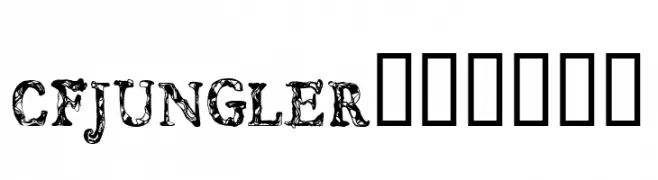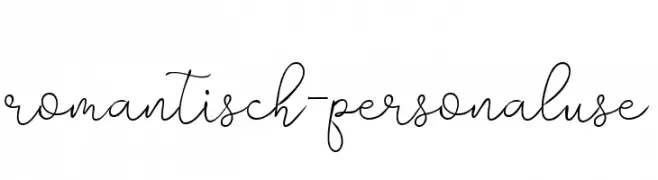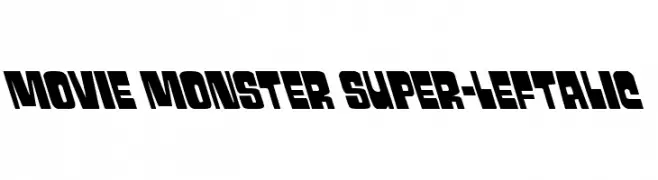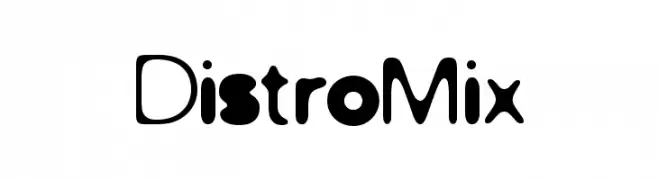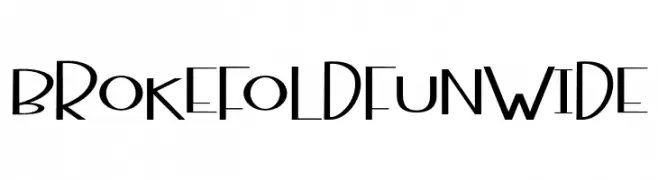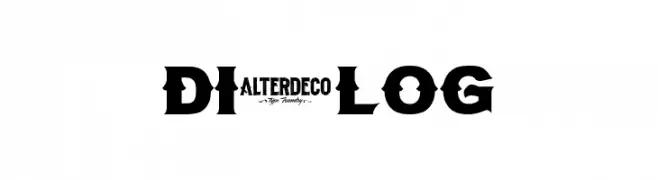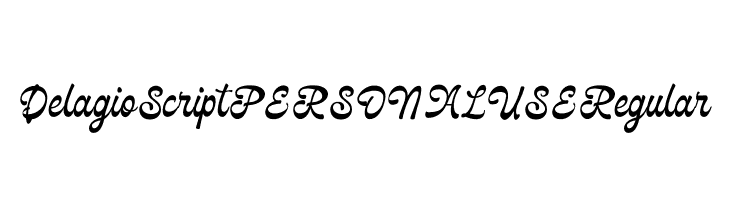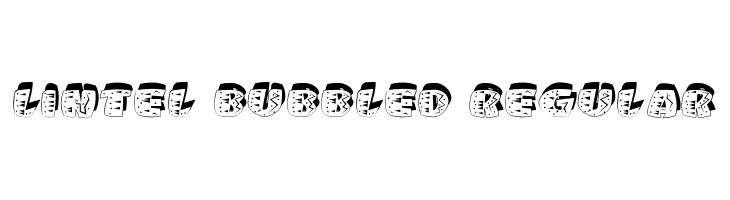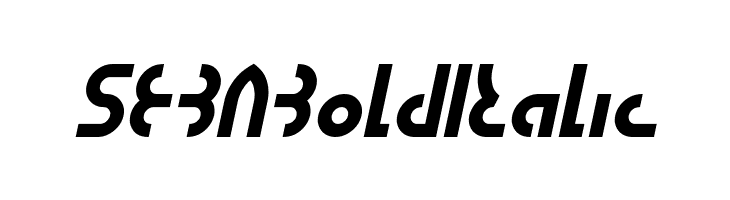
A decorative font with jungle-inspired, vine-like embellishments.
A graceful, flowing script font with elegant, cursive strokes.
A bold, flowing script font with intricate line work and decorative flourishes.
A bold, left-slanted font with a dynamic, geometric style.
A graceful and flowing script font with elegant, continuous strokes.
A bold, playful font with rounded edges and a whimsical design.
A playful and artistic font with bold, geometric shapes and a wide stance.
A bold, geometric font with art deco influences, perfect for striking headlines.
A bold, oblique font with a dynamic and energetic style.
A bold, brush-style font with dynamic and expressive strokes.